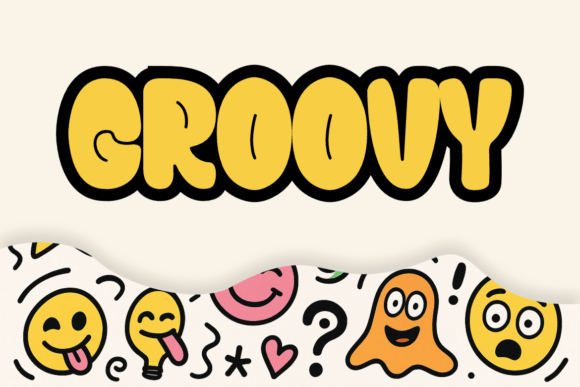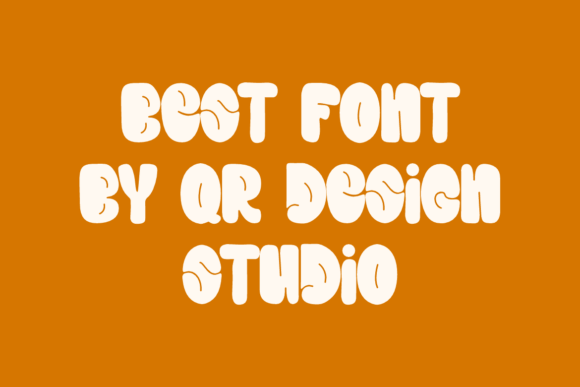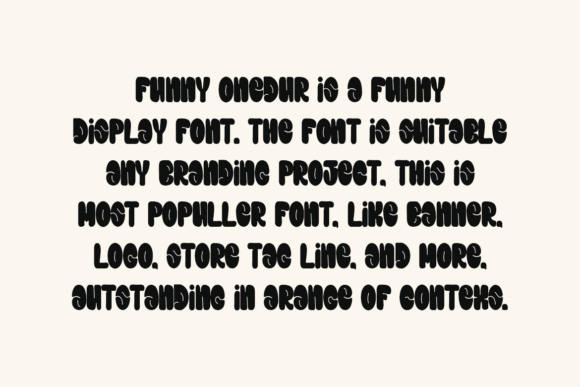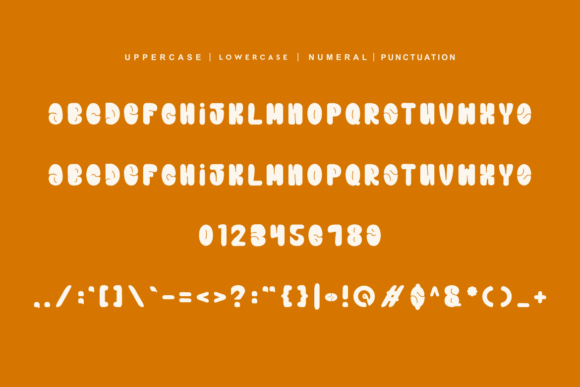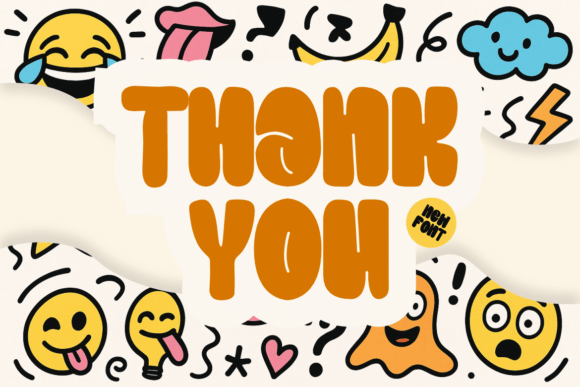
Introducing Funny Onedur Font: The Ultimate Choice for Playful Designs
Are you tired of using the same old fonts for your designs? Do you want to add a touch of playfulness and authenticity to your projects? Look no further than Funny Onedur Font! This cute and colorful display font is perfect for any children activity or school project, and is sure to make your designs come alive.
What is Funny Onedur Font?
Funny Onedur Font is a unique and eye-catching display font that embodies the spirit of playfulness and fun. Its chunky lettered design makes it perfect for use in a variety of projects, from children’s activity sheets to school posters and flyers. The font’s colorful and vibrant aesthetic is sure to capture the attention of your audience and leave a lasting impression.
Key Features of Funny Onedur Font
- Playful Design: Funny Onedur Font features a playful and chunky design that is sure to add a touch of fun to your projects.
- Colorful Aesthetic: The font’s vibrant and colorful aesthetic makes it perfect for use in children’s activity sheets, school posters, and other playful designs.
- Authentic Feel: Funny Onedur Font has an authentic feel that is sure to resonate with your audience and make your designs stand out.
- Easy to Read: Despite its playful design, Funny Onedur Font is easy to read and understand, making it perfect for use in a variety of projects.
Uses for Funny Onedur Font
Funny Onedur Font is a versatile font that can be used in a variety of projects, including:
- Children’s Activity Sheets: Add a touch of fun and playfulness to your children’s activity sheets with Funny Onedur Font.
- School Posters and Flyers: Use Funny Onedur Font to create eye-catching posters and flyers for school events and activities.
- Crafting Projects: Add a playful touch to your crafting projects, such as DIY cards and gift tags, with Funny Onedur Font.
- Digital Designs: Use Funny Onedur Font in your digital designs, such as social media graphics and blog posts, to add a touch of playfulness and fun.
Why Choose Funny Onedur Font?
There are many reasons why Funny Onedur Font is the perfect choice for your designs. Here are just a few:
- Unique Design: Funny Onedur Font features a unique and eye-catching design that is sure to make your designs stand out.
- Playful Aesthetic: The font’s playful and colorful aesthetic is perfect for use in children’s activity sheets, school posters, and other playful designs.
- Easy to Use: Funny Onedur Font is easy to use and can be easily integrated into your designs.
- Versatile: Funny Onedur Font can be used in a variety of projects, from children’s activity sheets to digital designs.
In conclusion, Funny Onedur Font is a cute and colorful display font that is perfect for any children activity or school project. Its playful design, colorful aesthetic, and authentic feel make it the ultimate choice for designers and crafters looking to add a touch of fun and playfulness to their projects. With its versatility and ease of use, Funny Onedur Font is sure to become a staple in your design toolkit.